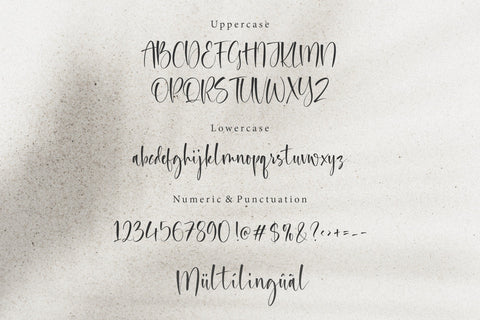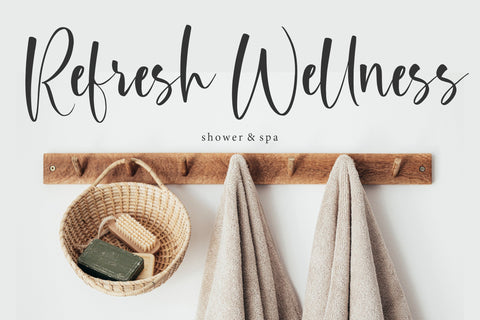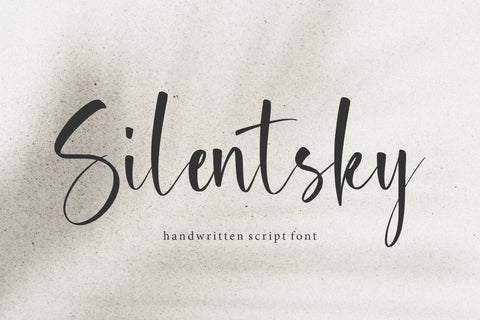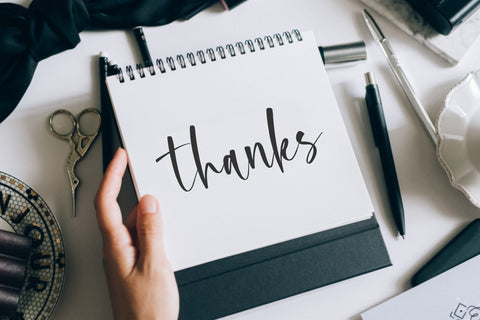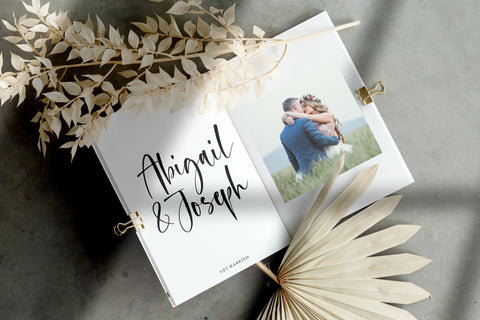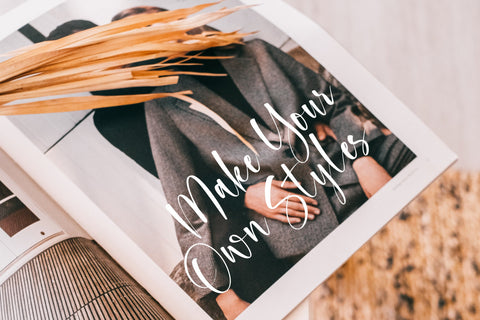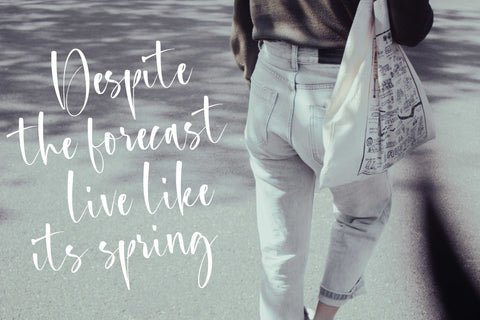
Silentsky Modern Handwritten Font
Introducing by Letterative Studio : Silentsky Font
Silentsky is a Modern Handwritten Font
Silentsky is a unique and elegant handwritten font. It looks beautiful on a variety of designs requiring a personalized style, such as wedding invitations, thank you cards, greeting cards, logos, and so on.
Alpinet also multilingual support